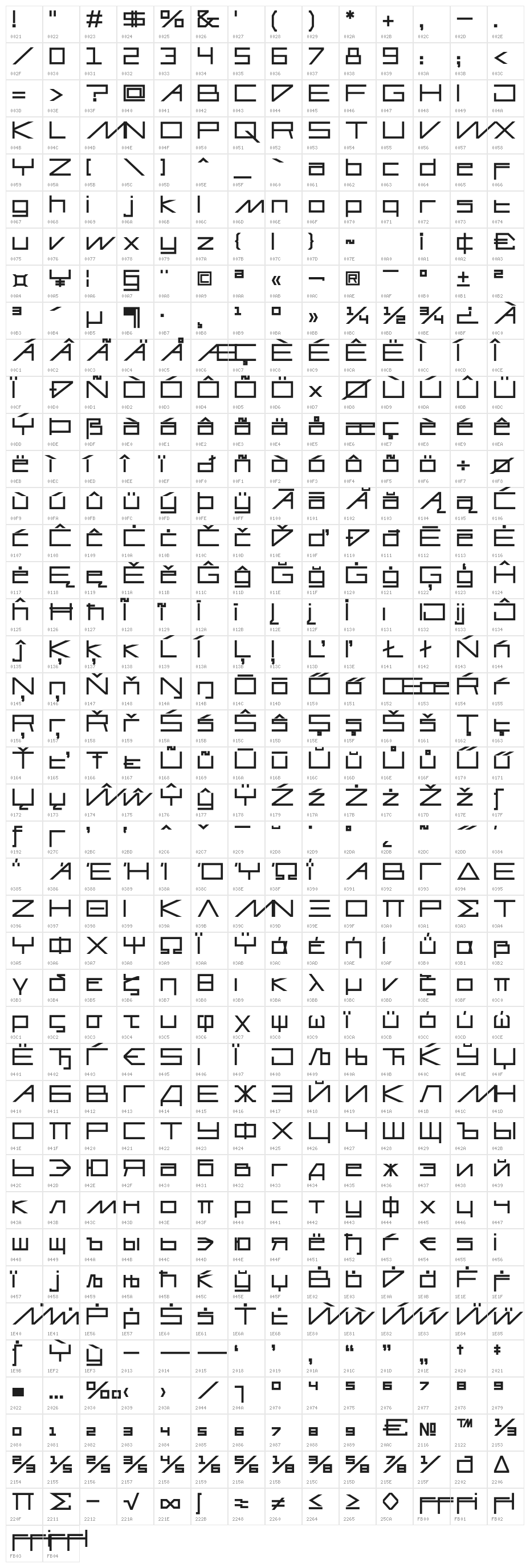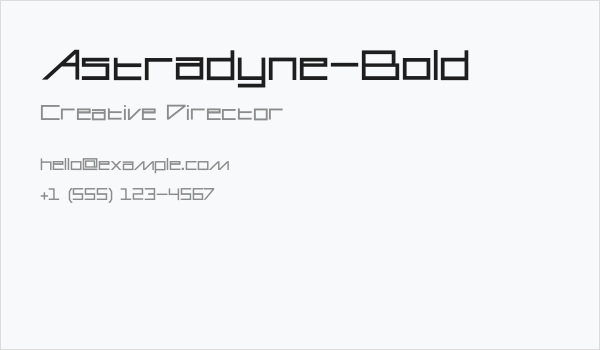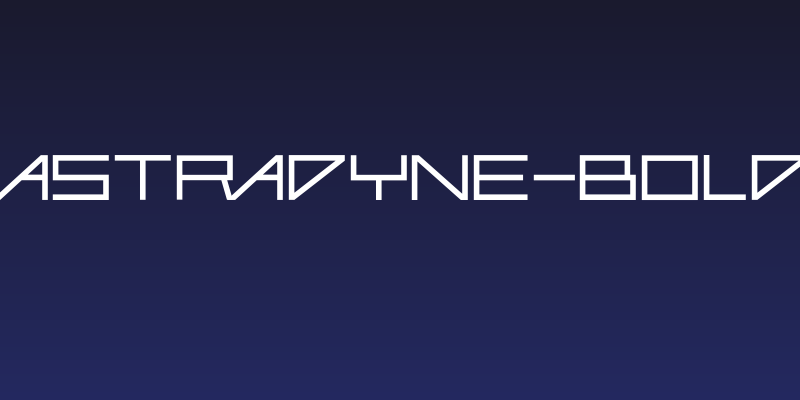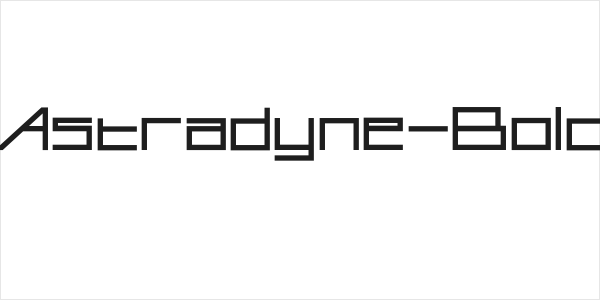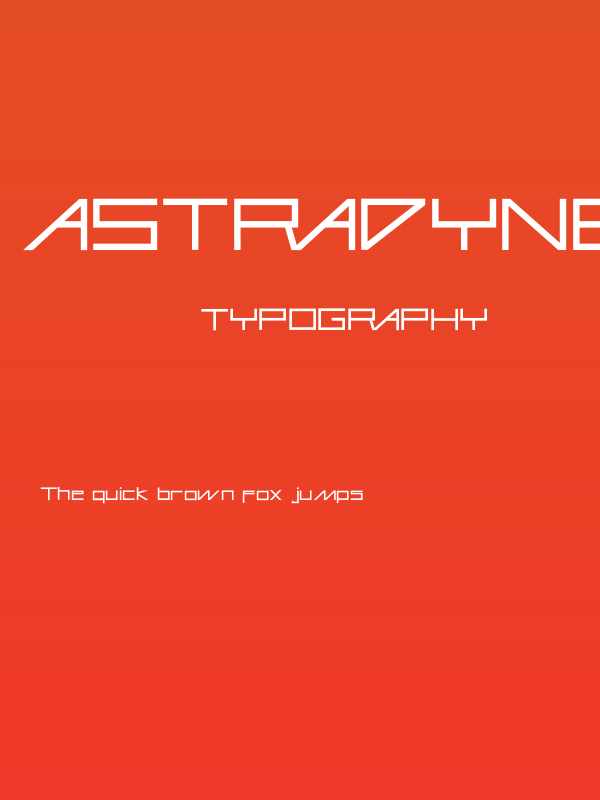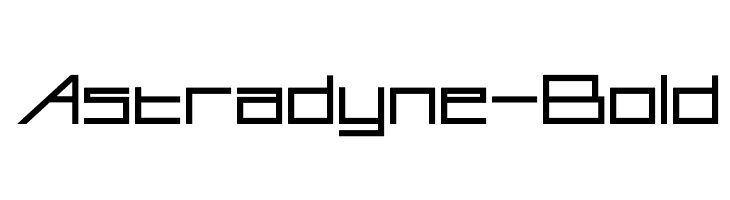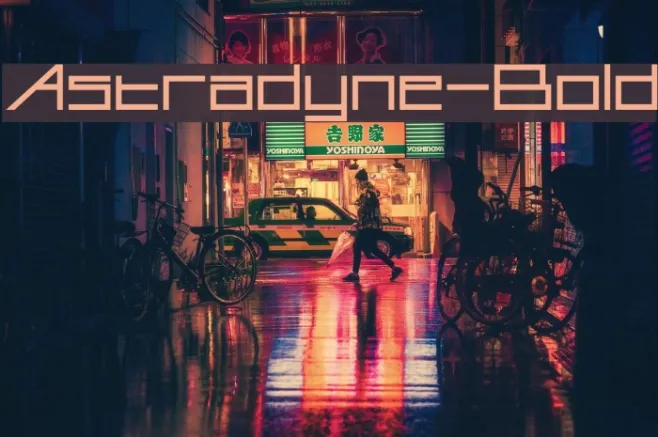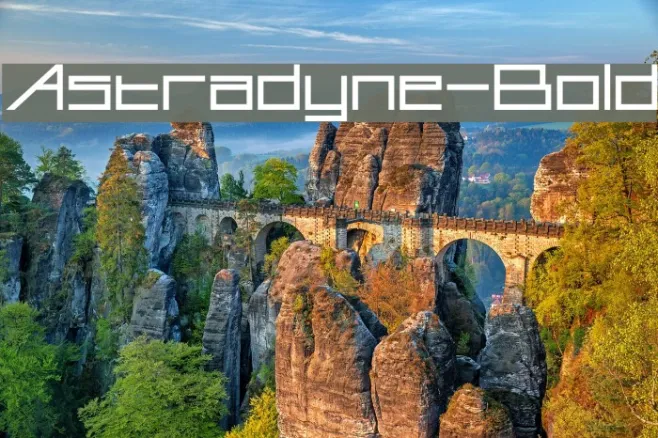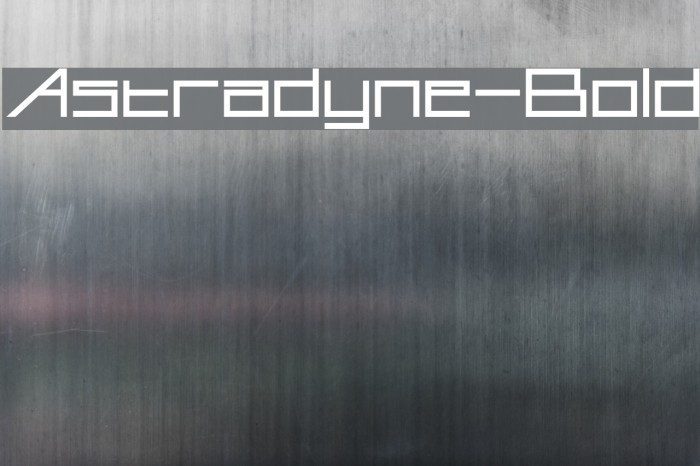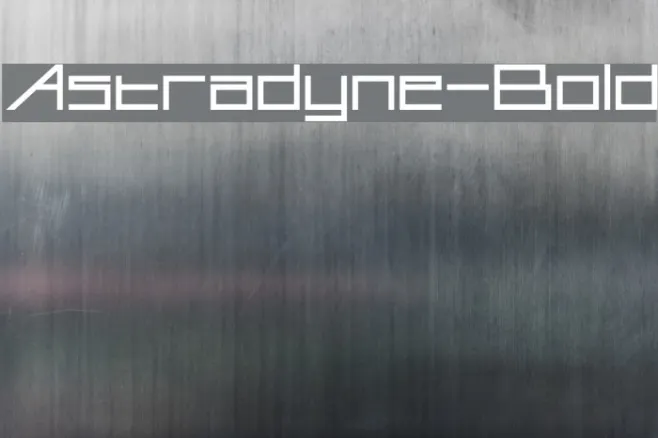
Astradyne-Bold Font
Astradyne-Bold Description
This font features a futuristic and geometric design, characterized by sharp angles and clean lines. The uppercase letters are bold and angular, with a distinct slant that gives them a dynamic appearance. The lowercase letters maintain the geometric theme, offering a cohesive look across both cases. Numbers are similarly styled, ensuring consistency throughout. The special characters are designed to match the overall aesthetic, making this font suitable for modern and tech-oriented projects. Its boldness and unique style make it stand out, perfect for grabbing attention.
| Proposed Projects | Ideal for technology branding, sci-fi themed designs, video game titles, and modern advertising. |